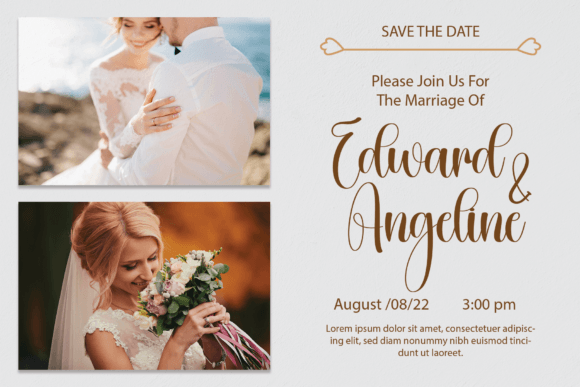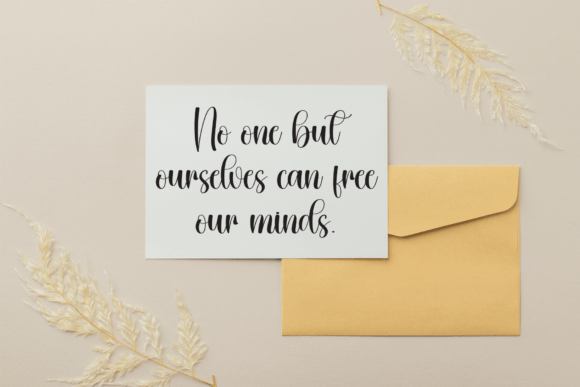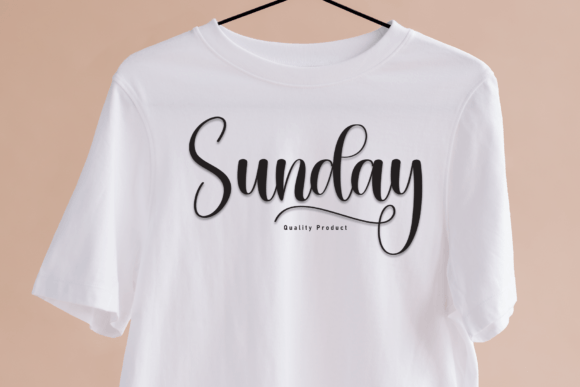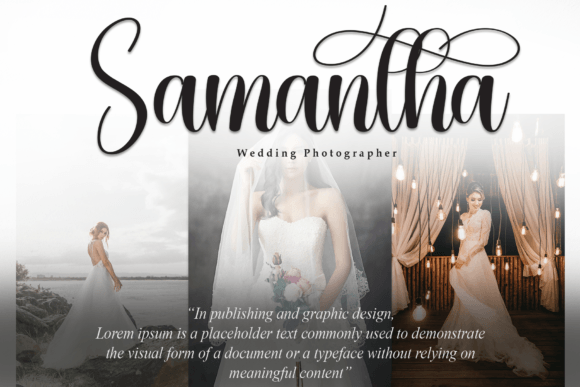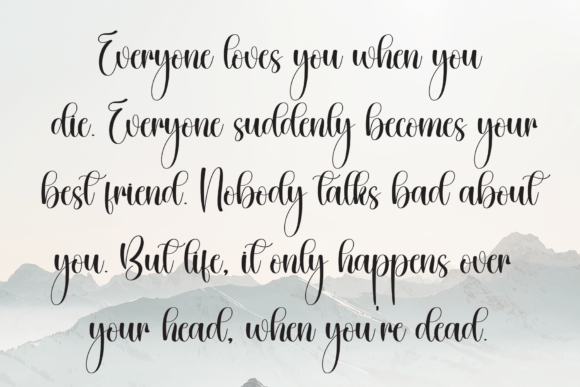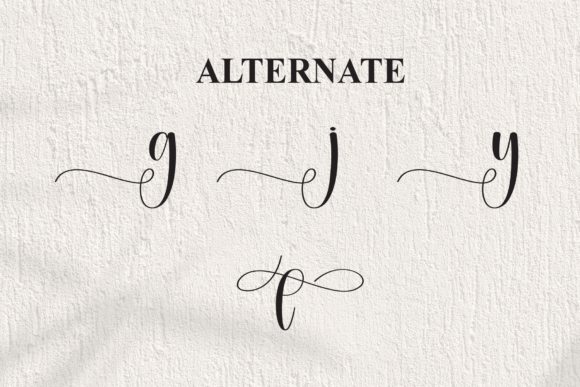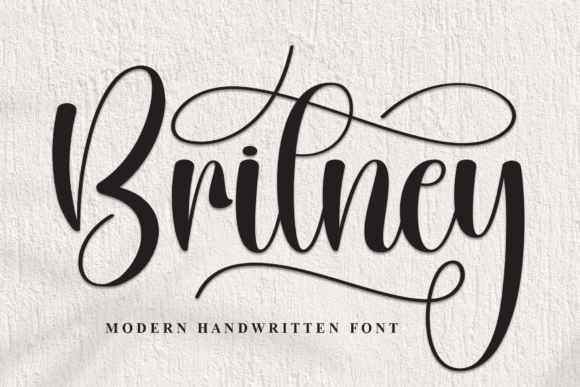
The Ultimate Guide to Britney Font: A Lovely Handwritten Font for Creative Projects
I’ll never forget the time I was working on a project for a client who wanted a playful, yet elegant font to match their brand’s personality. I spent hours scrolling through font libraries, but nothing seemed quite right. That was until I stumbled upon the Britney font. Its natural, handwritten style instantly caught my attention, and I knew I had found the perfect fit. In this article, I’ll share my experience with the Britney font, its features, and how to make the most of it in your creative projects.
An Honest Review of Britney Font
What I Love About Britney Font
- ✨ Unique and Natural Style: Britney font has a distinct, handwritten look that sets it apart from other fonts.
- ✅ Versatility: It’s incredibly versatile and can be used in a wide range of designs, from invitations to branding materials.
- 💫 Elegant yet Playful: The font strikes a perfect balance between elegance and playfulness, making it suitable for various creative projects.
While the Britney font is amazing, there are a few things to keep in mind:
- 🤔 Kerning Issues: As with any handwritten font, you might encounter some kerning issues, especially when using it in larger blocks of text.
- ⚠️ Limited Formal Use: Due to its playful nature, the Britney font might not be the best choice for very formal or corporate designs.
The Story Behind Britney Font
The Britney font was designed with the intention of creating a unique, handwritten font that captures the essence of natural, effortless writing. The designer aimed to create a font that is both elegant and playful, making it perfect for a wide range of creative projects.
Q: What type of designs is the Britney font best suited for?
A: The Britney font is incredibly versatile and can be used in various designs, such as invitations, branding materials, social media graphics, and more.